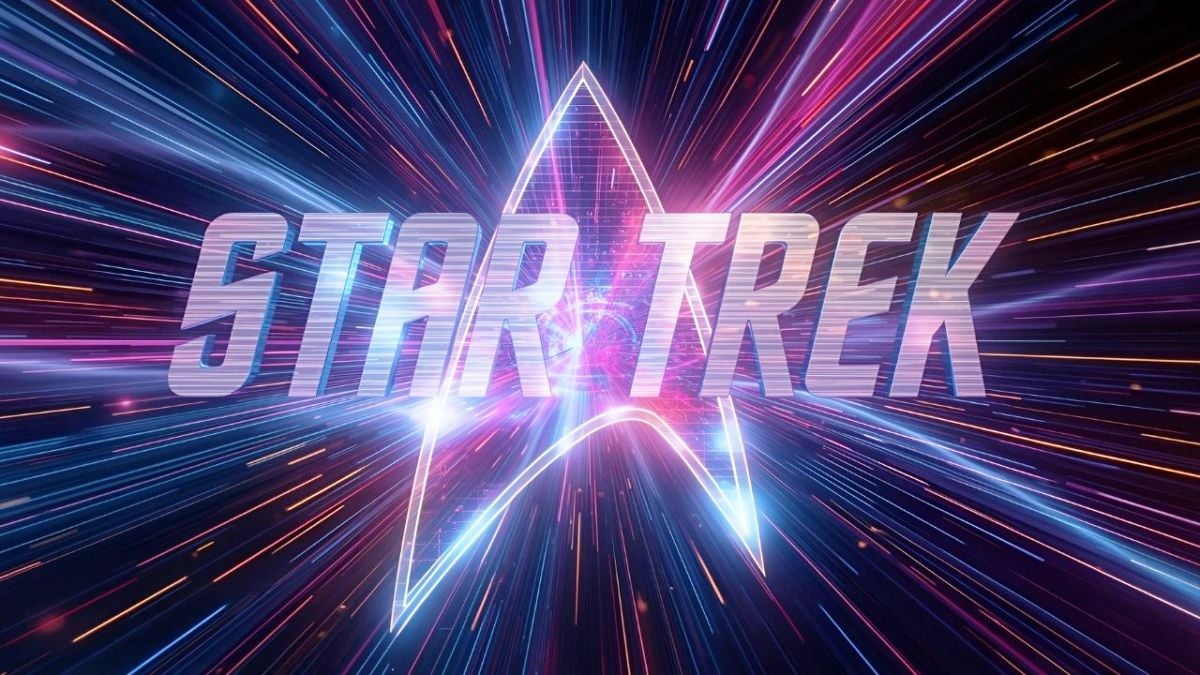
Get the authentic Star Trek font – the perfect sci-fi typography for warp-worthy designs. Perfect for Star Trek fans and space opera themes.
Star Trek font captures the epic space opera essence of warp drives and quantum leaps! This powerful typography brings authentic Star Trek character to your text designs. Our Star Trek Font Generator lets you create epic text using the authentic Star Trek font. Perfect for sci-fi-themed designs, Star Trek projects, and warp-worthy content.
Experience the power of the final frontier with our premium space font that adds quantum energy and warp power to your typography!